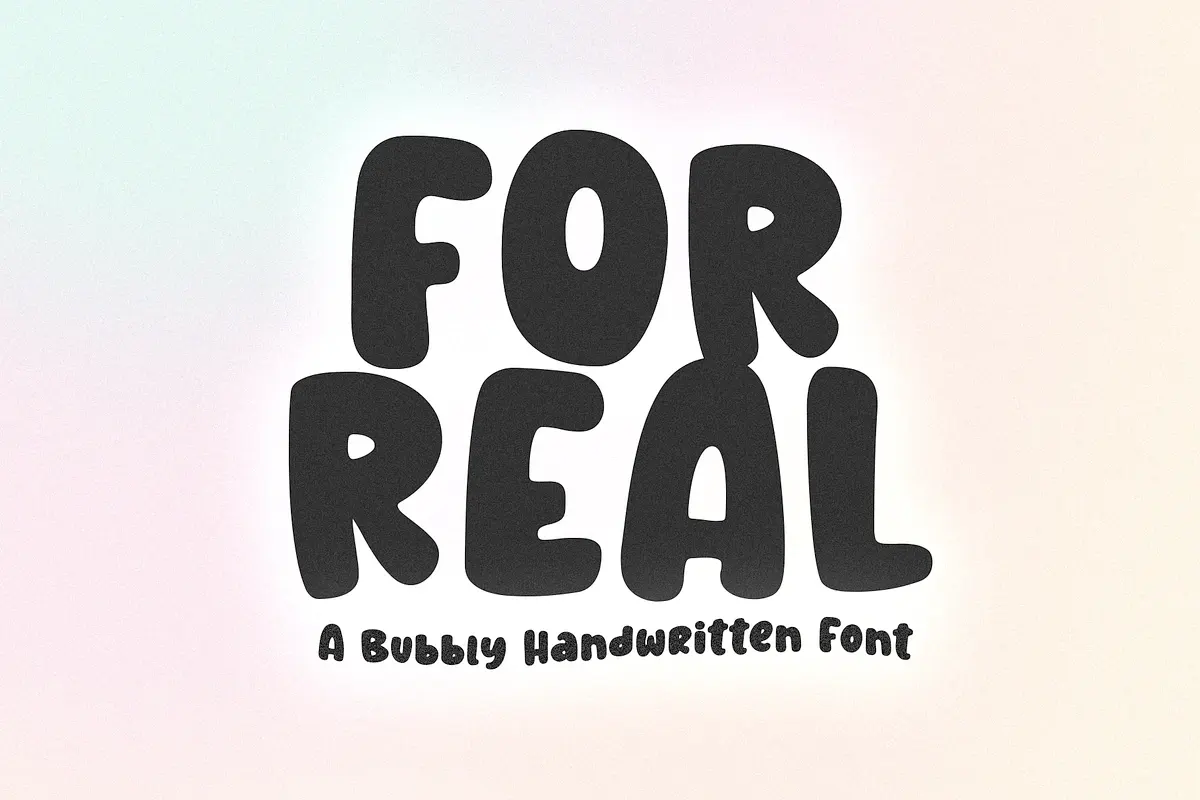
For Real | Bubbly Handwritten Font Free Download is a fun, lighthearted typeface bursting with personality and charm. Please note: you must purchase this font for commercial use, but you can test it through a free download. With its rounded, playful letters and handwritten vibe, For Real is perfect for social media posts, kid-friendly branding, greeting cards, stickers, and anything that needs a splash of joy.
This font captures the essence of casual fun, making your messages feel approachable, energetic, and totally “for real.” Whether you’re designing a cheerful logo or a colorful Instagram quote, For Real | Bubbly Handwritten Font Free Download adds a warm, creative touch that stands out. It’s fully compatible with Adobe Illustrator, Photoshop, Canva, and more—making it a breeze to use in any workflow. Download it today for personal use and give your designs a bubbly, handwritten boost of happiness!